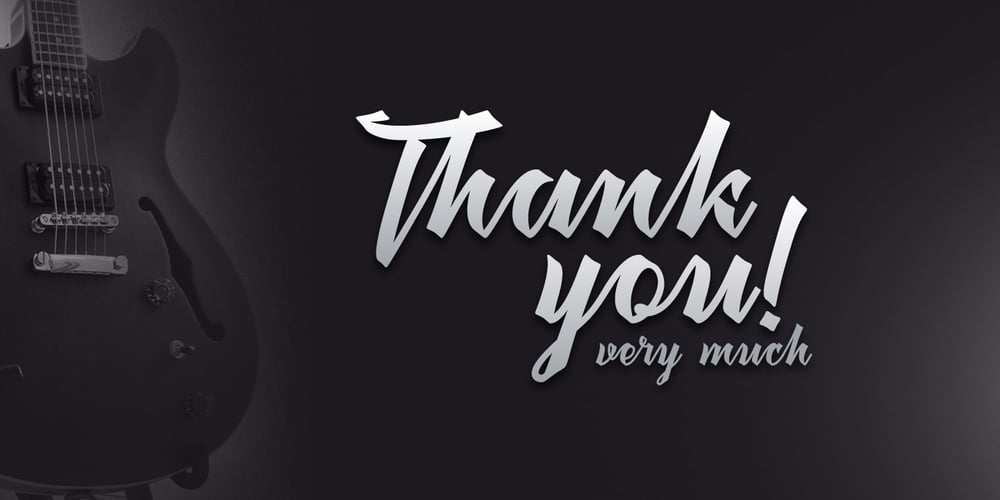
Megawatt Font Family was designed by Gleb Guralnyk and published by Gleb Guralnyk. Megawatt contains 1 styles and family package options. Hi! Introducing calligraphic font named “Megawatt”. It’s a script with connected letters, lots of characters including West European languages support and few ligatures. Thank you and have fun!